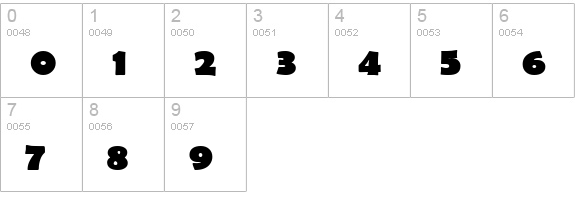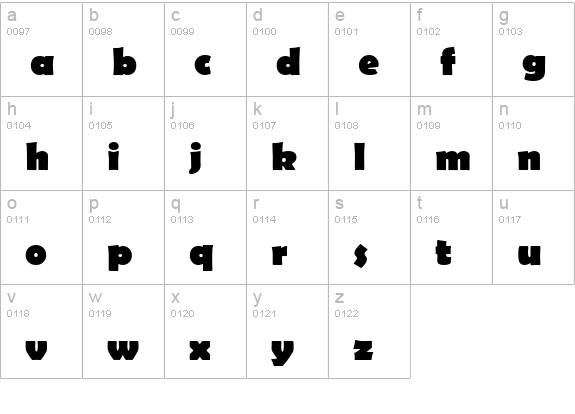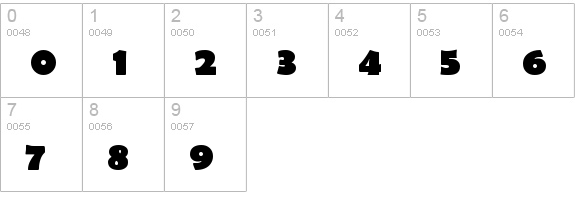
Berlin Sans FB Bold Font Details
Berlin Sans FB Bold is a strong, high-contrast variant in the Berlin typeface family \xE2\x80\x94 well suited to headlines, attention-grabbing titles, and strong calls-to-action.
Berlin Sans FB Bold is a modern and stylish font that exudes confidence and sophistication. With its bold and clean lines, this font is perfect for making a bold statement in any design project. Whether you're creating a poster, logo, or invitation, Berlin Sans FB Bold will give your work a professional and polished look. The best part is that Berlin Sans FB Bold is completely free to download at FontsMarket.com. This means you can easily access this high-quality font without having to spend a dime. So go ahead and elevate your designs with the sleek and contemporary style of Berlin Sans FB Bold, available now for free download at FontsMarket.com.